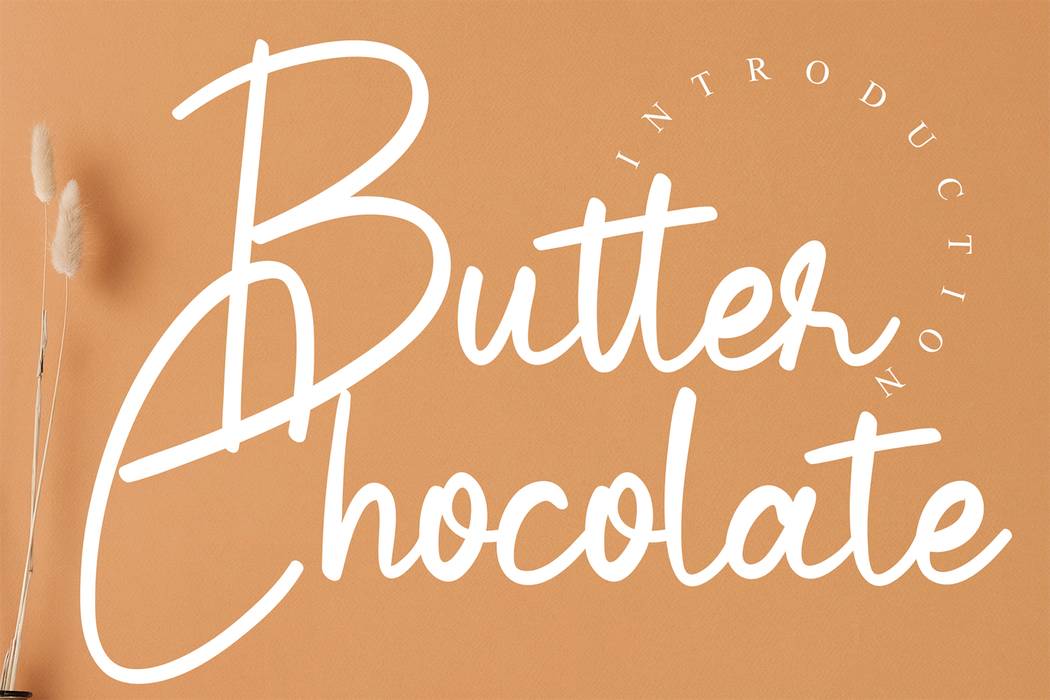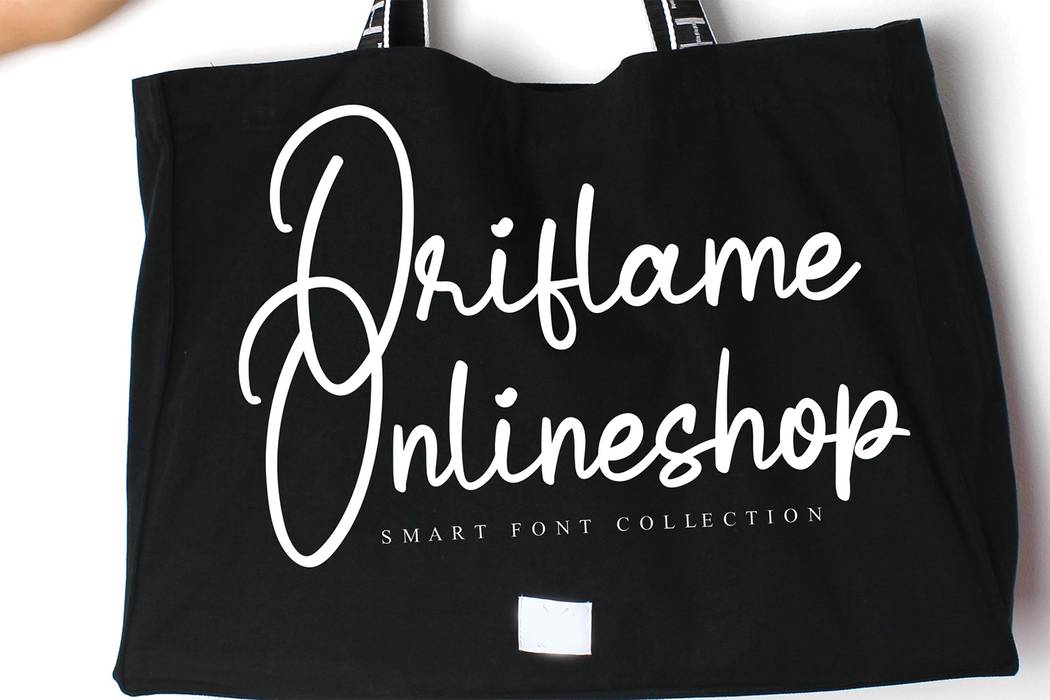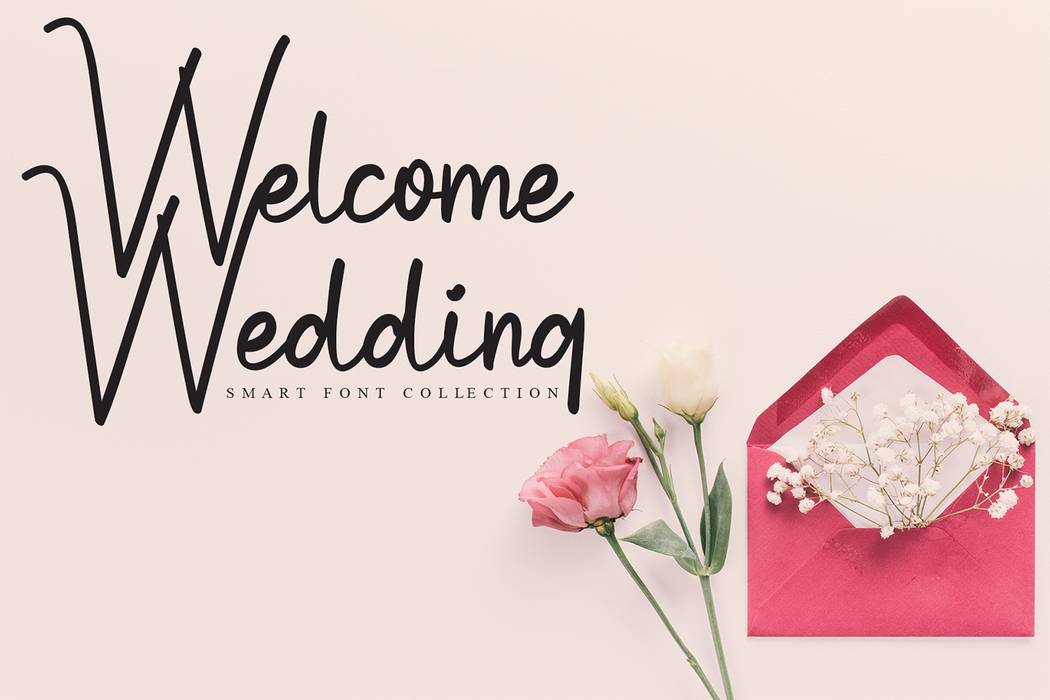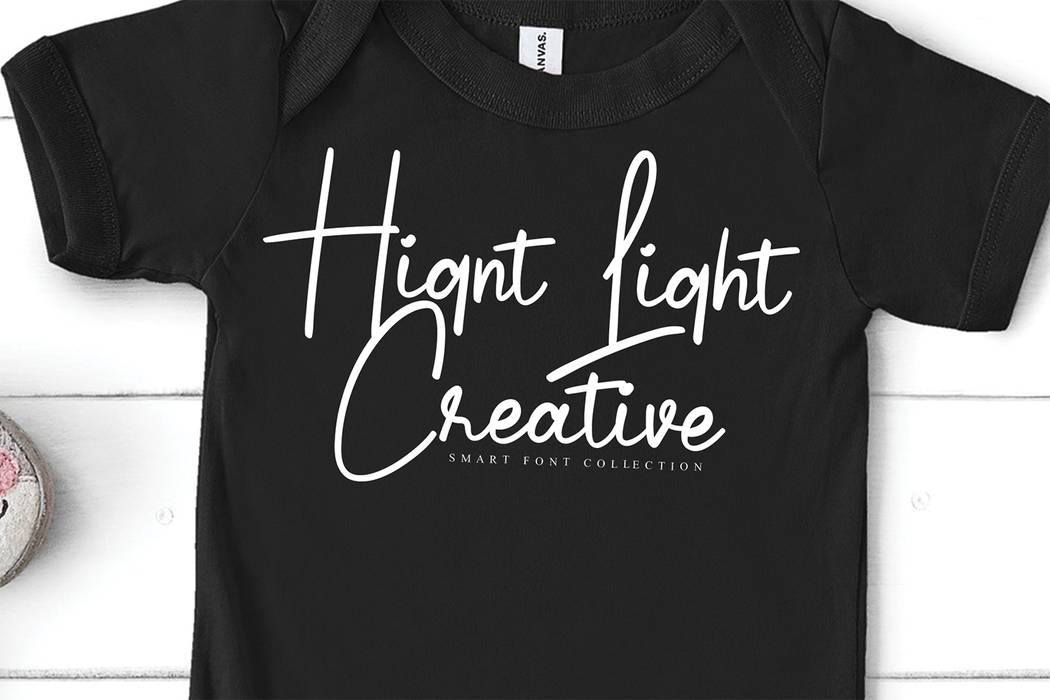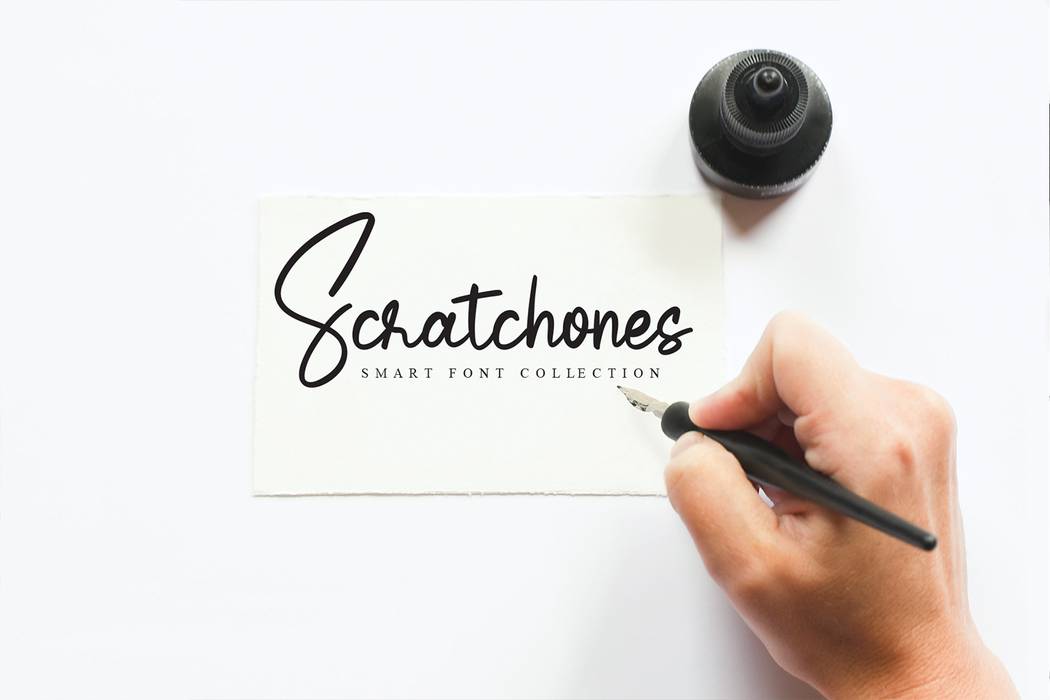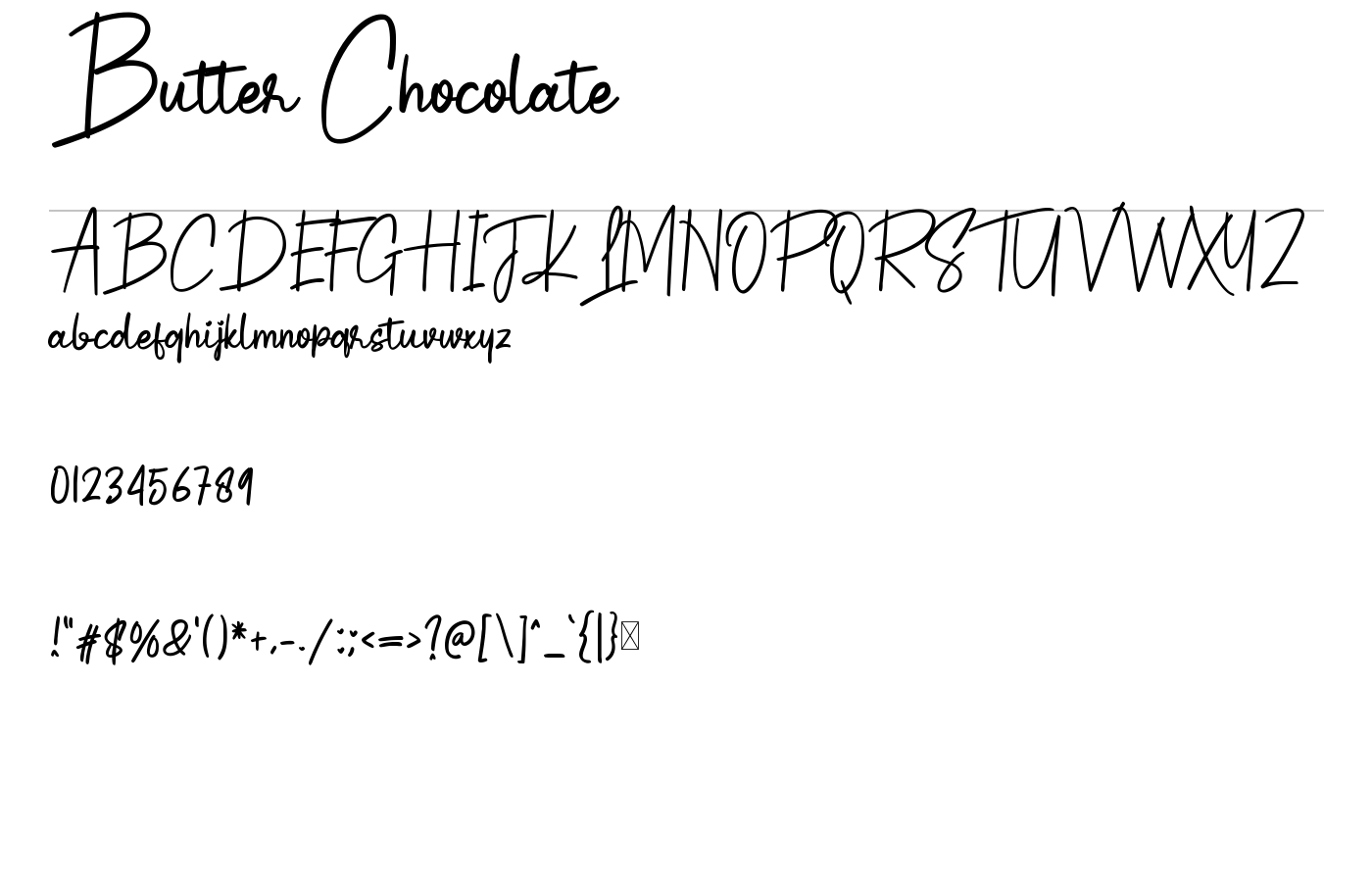
Butter Chocolate is a playful and casual handwritten font with a light, airy feel and tall, narrow letterforms. Its energetic strokes and tall uppercase letters paired with a more compact lowercase style give it a friendly, informal personality, making it ideal for creative projects, branding, and invitations that want a personal touch. This font works well where a lively, approachable vibe is needed, especially in designs that seek warmth and individuality.
Butter Chocolate Font
About Butter Chocolate Font
| Font family | Butter Chocolate Font |